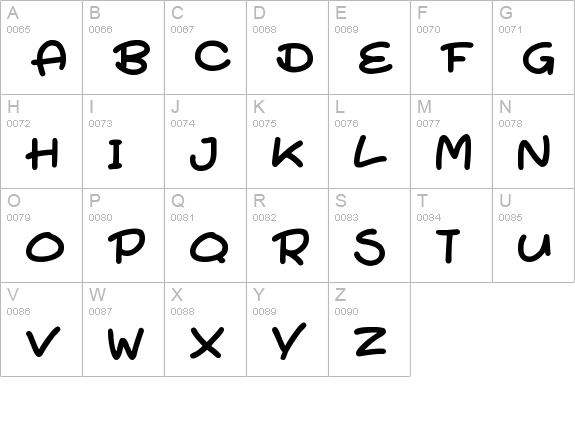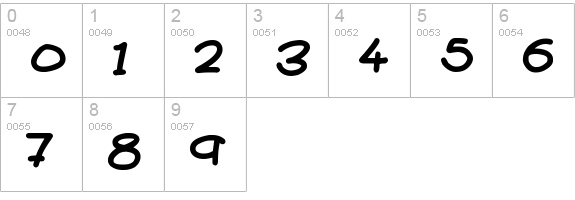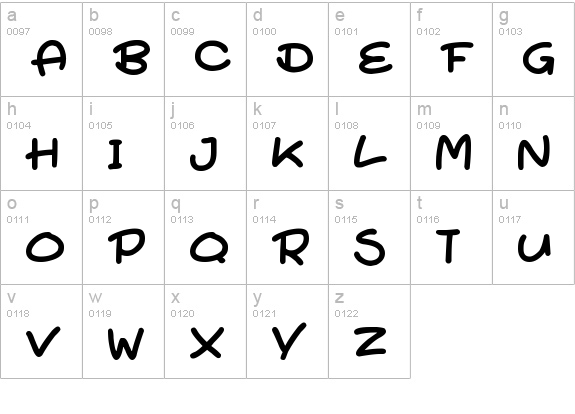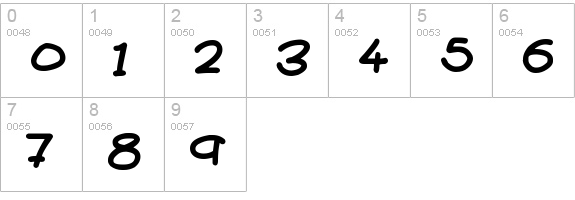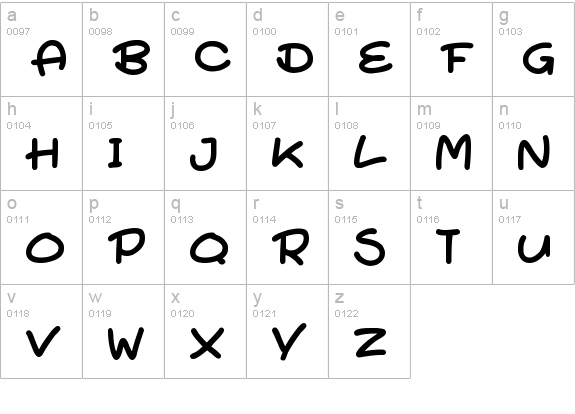
Super Turnips Font Details
Super Turnips is a free for personal use font in the Script > Handwritten category, designed by Darrell Flood. It has been downloaded 42 times and is available for Windows, Mac and Linux.
Super Turnips font is a stylish and modern typeface that is perfect for adding a touch of elegance to your designs. With its unique and eye-catching letterforms, this font is sure to make a statement. The sleek lines and curves of Super Turnips font give it a sophisticated look that is perfect for a wide range of projects.